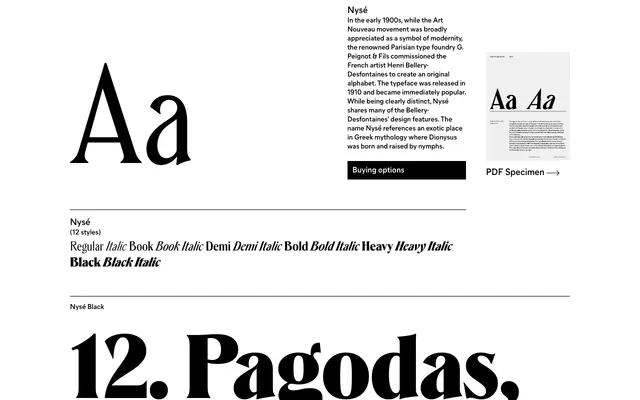
Nysé specimen from General Type Studio
A 12-style Art Nouveau serif drawn in the tradition of Henri Bellery-Desfontaines' 1910 alphabet for G. Peignot & Fils, with a wide range of OpenType alternates for individual letterforms.
Six weights from Regular to Black, each with a matching italic, give Nysé a broad typographic range while retaining the organic, ornamented character of early twentieth-century Parisian type. OpenType features include oldstyle figures, small capitals, discretionary ligatures and individual alternates for A, M, N, R, a, e and the ampersand, allowing fine control over the decorative quality of a setting. The name references the mythological birthplace of Dionysus, and that sense of classical exoticism runs through the design's fluid, slightly theatrical stroke modulation.
Nysé draws directly on the Art Nouveau tradition, referencing the 1910 Bellery-Desfontaines alphabet commissioned by G. Peignot & Fils, with characteristic organic letterforms and decorative alternate glyphs placing it firmly in expressive display serif territory.